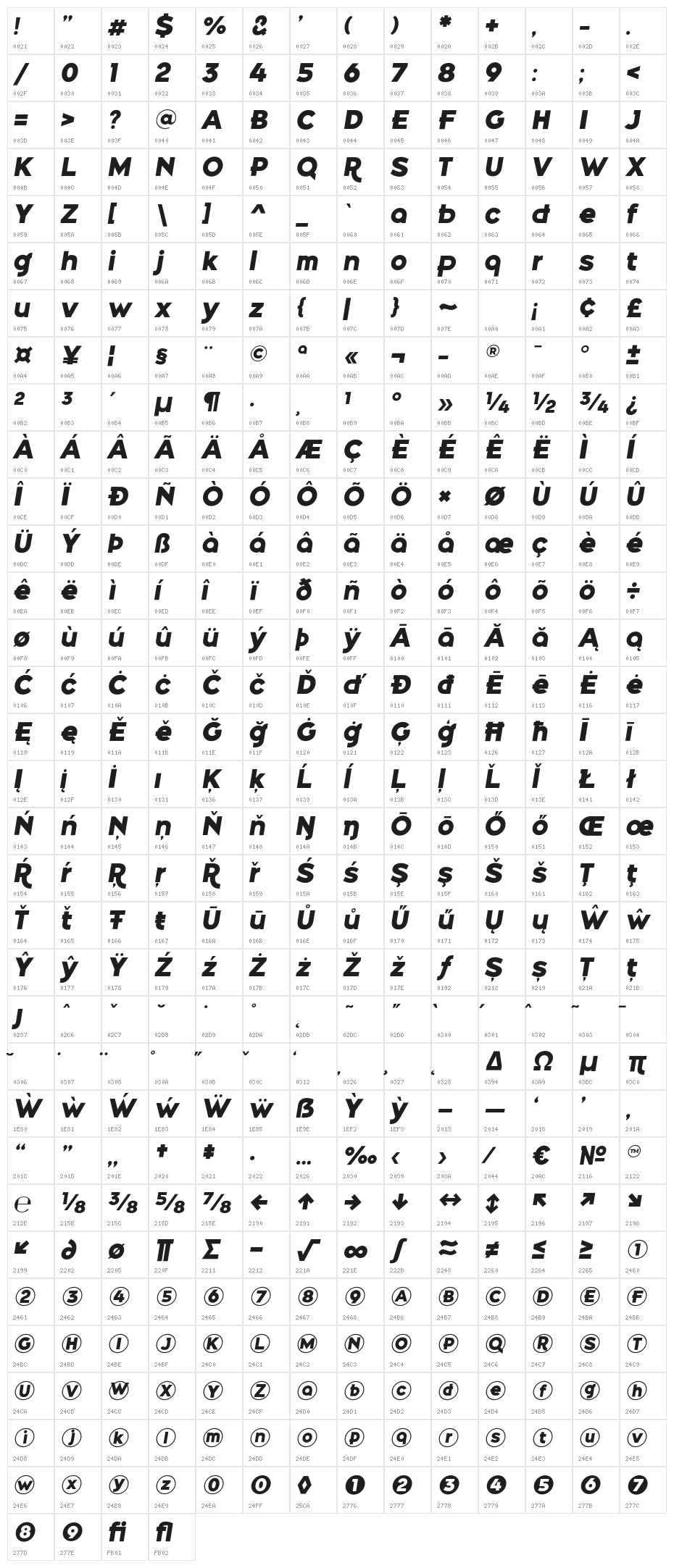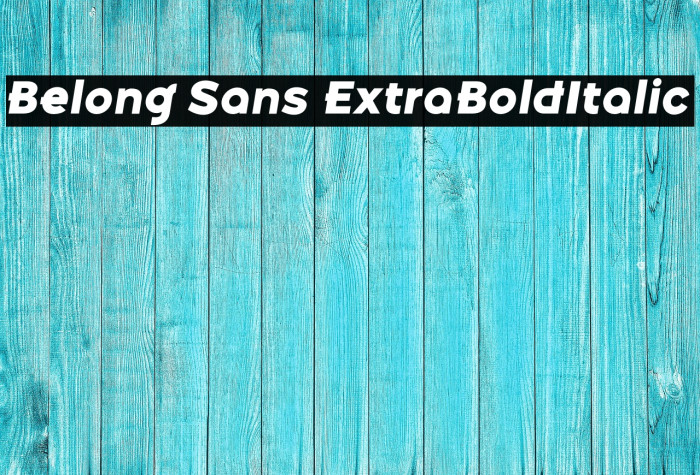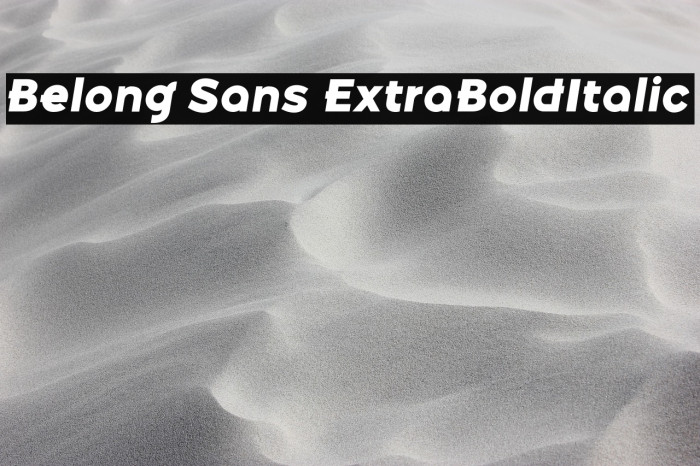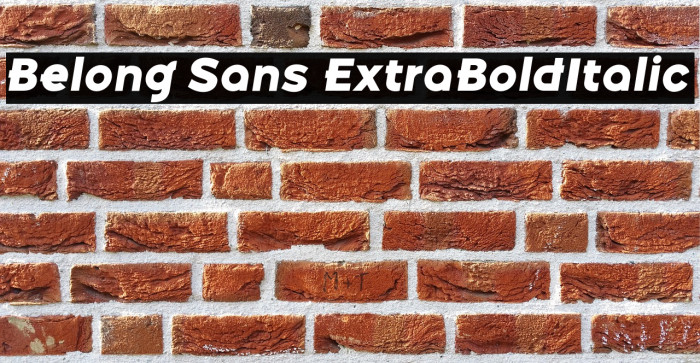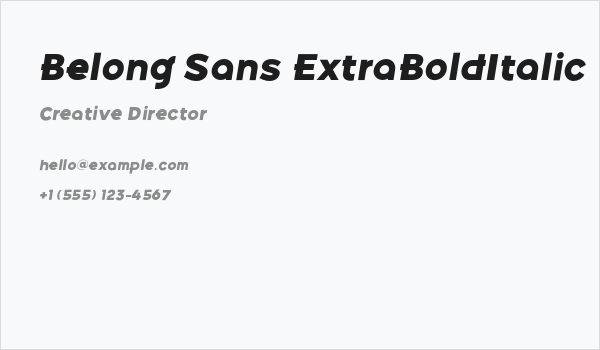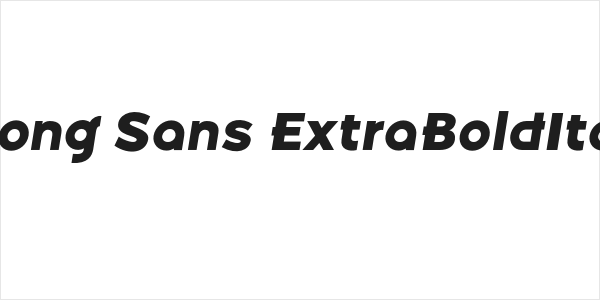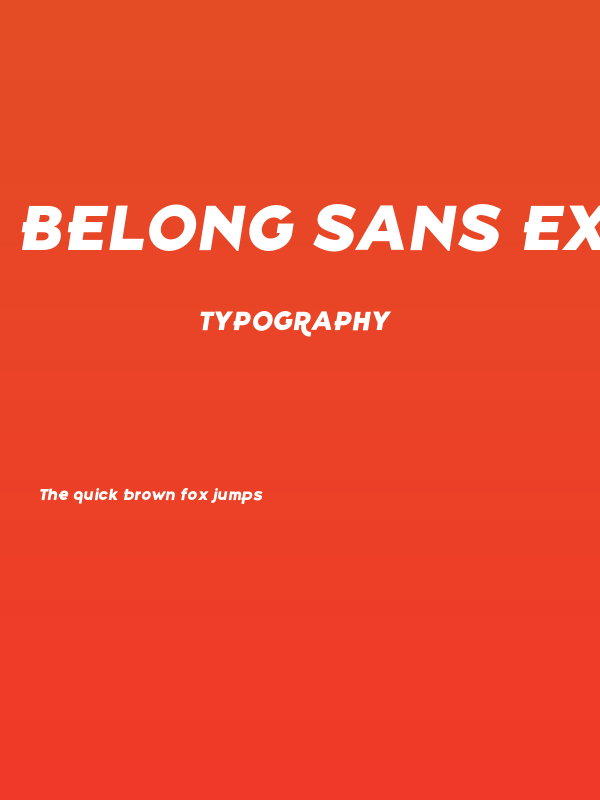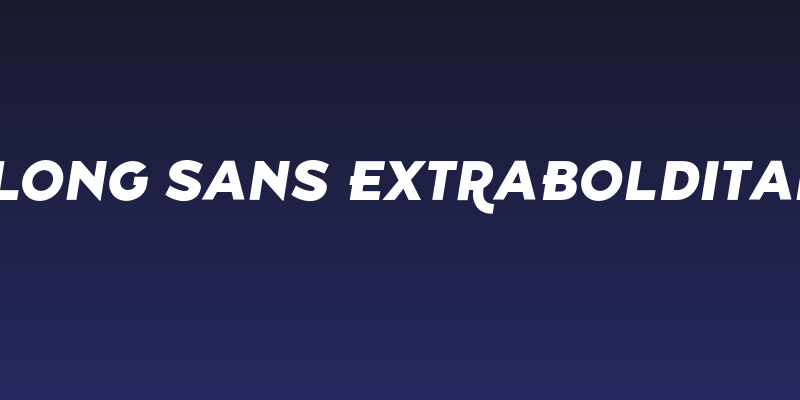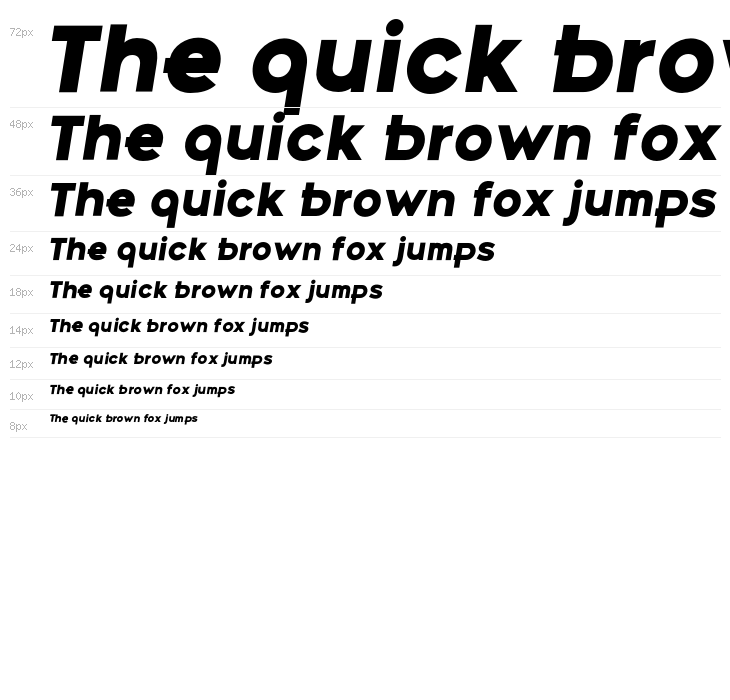
Belong Sans ExtraBoldItalic Font
Belong Sans ExtraBoldItalic Description
This font features a bold and dynamic sans-serif style with a strong emphasis on extra weight and italicized form. The characters are robust and convey a sense of modernity and strength, making them ideal for impactful headlines and branding. The uppercase letters are particularly striking, with a slight forward slant that adds a sense of motion and urgency. The lowercase letters maintain the same boldness, ensuring consistency across different text cases. Numbers and special characters are designed with the same attention to detail, providing a cohesive look throughout. The overall design is clean and uncluttered, allowing for excellent readability even at smaller sizes.